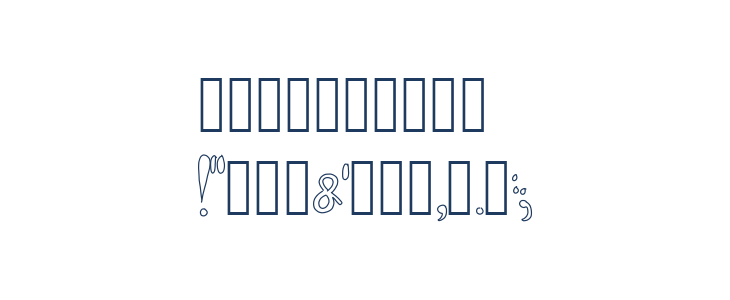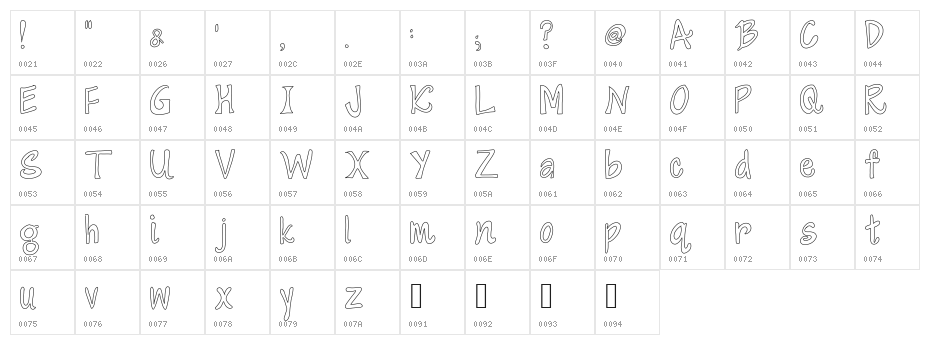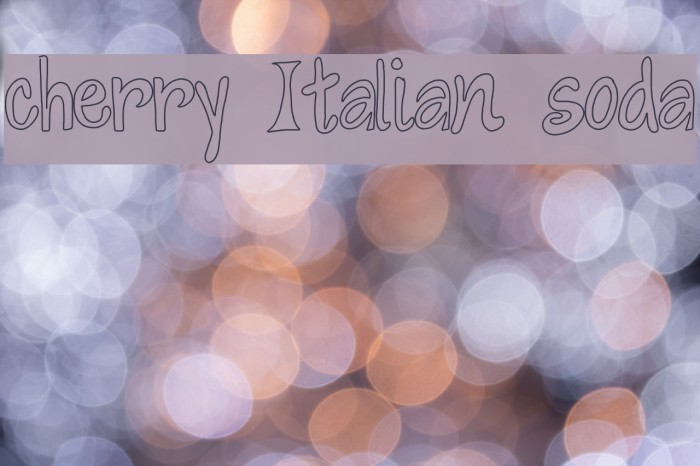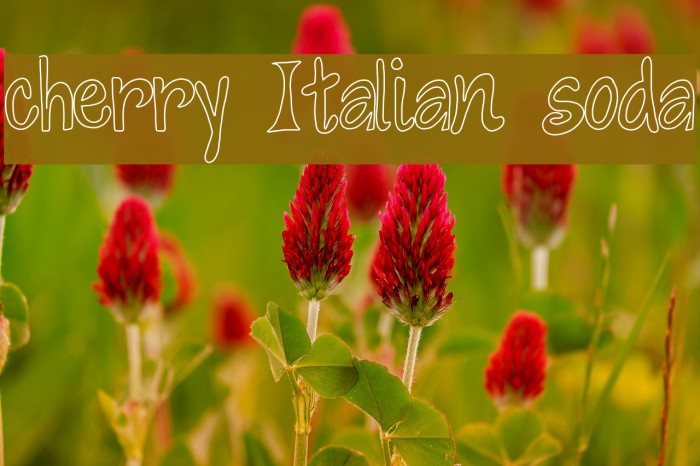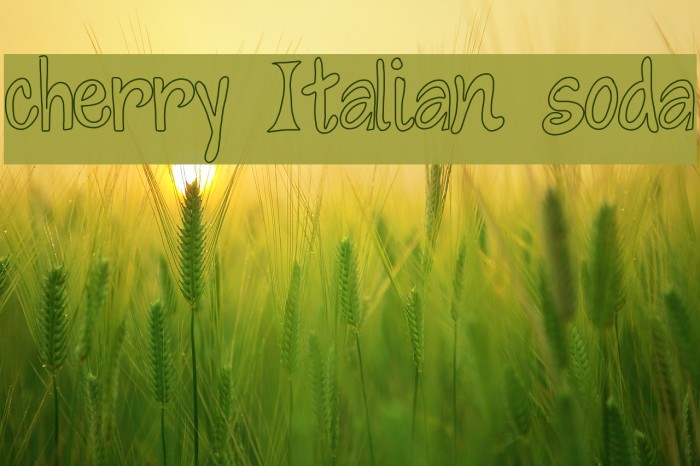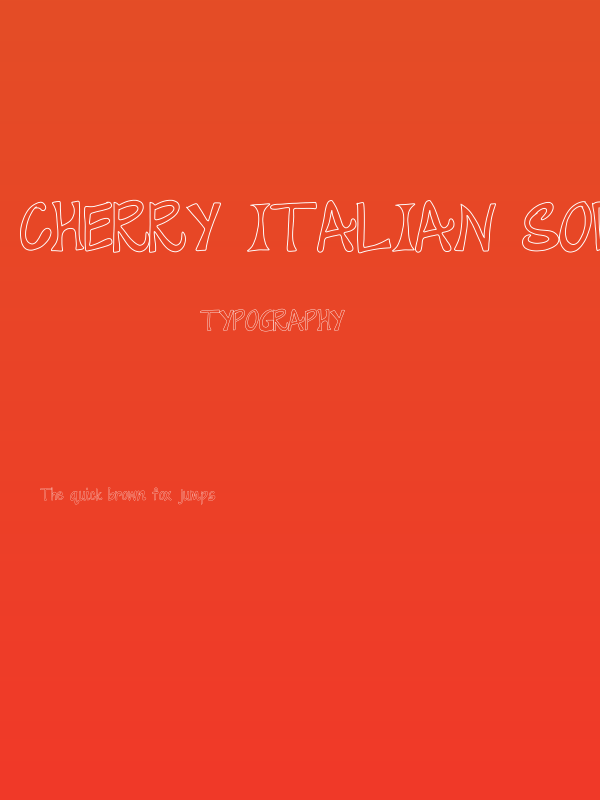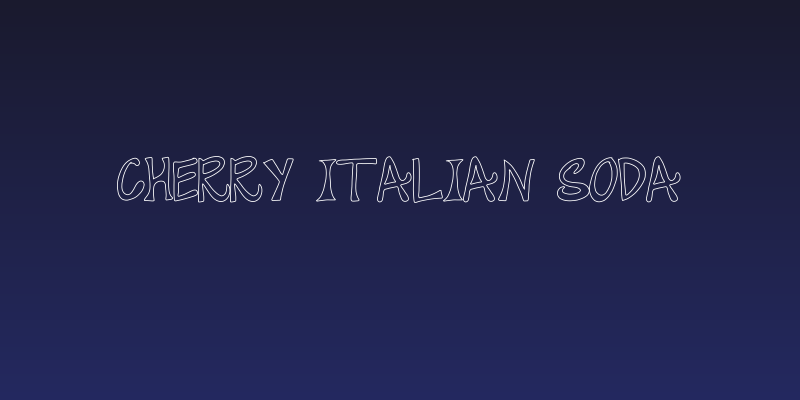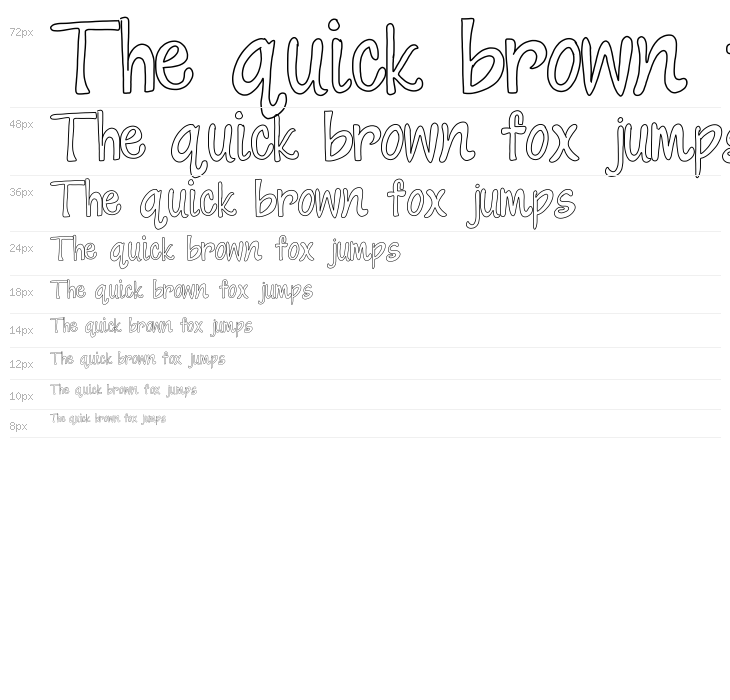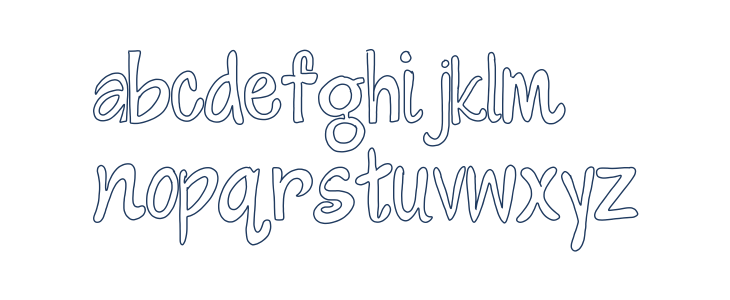
cherry Italian soda Font
cherry Italian soda Description
This playful and whimsical font features a hand-drawn style with a casual and friendly appearance. The letters are outlined, giving them a unique and artistic look. The uppercase and lowercase characters maintain a consistent style, with rounded edges and a slightly irregular form that adds to the charm. The numbers and special characters follow the same playful aesthetic, making this font suitable for creative and informal projects. Its distinctive style makes it stand out, perfect for designs that require a touch of fun and creativity.
| Overall Style | Whimsical, Playful, Artistic |
| Proposed Projects | Ideal for children's books, playful branding, greeting cards, and creative posters. |